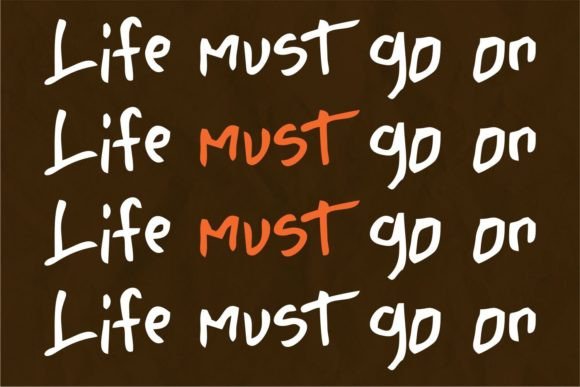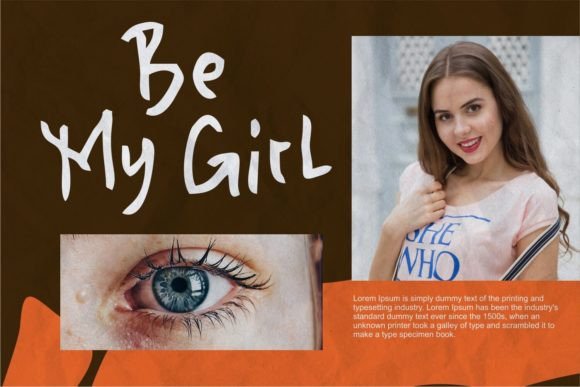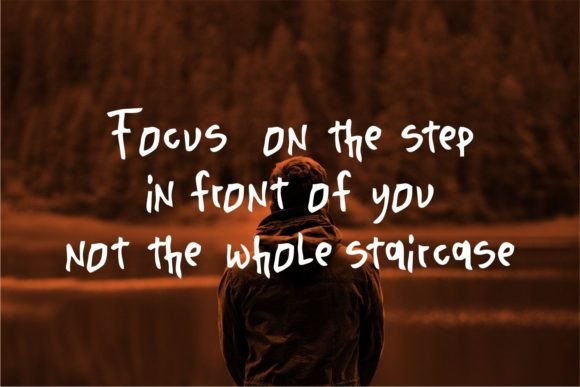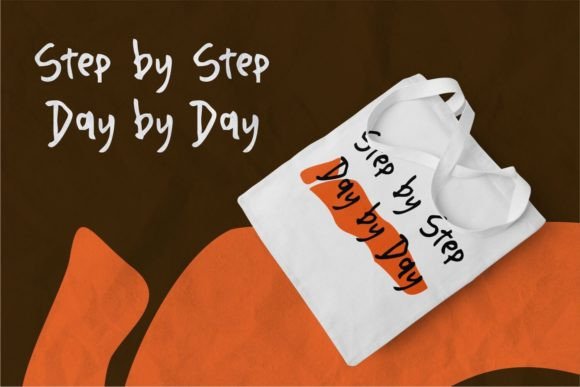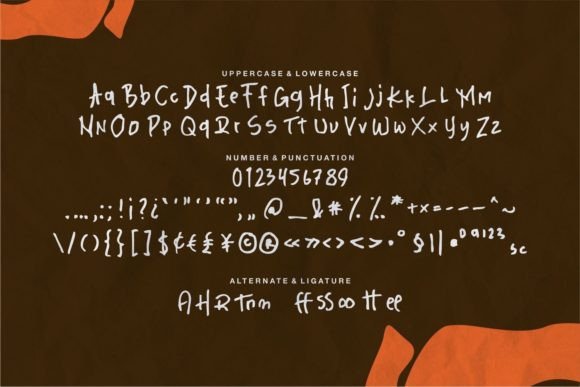
Discover the Delightful Aretta Font: Adding a Playful Touch to Your Designs
In the world of typography, fonts play a crucial role in conveying the tone and personality of a design. If you’re looking for a font that exudes playfulness, spontaneity, and a touch of whimsy, look no further than the Aretta font. This charming handwritten font is perfect for designers and crafters who want to add a personal and relaxed feel to their projects.
The Characteristics of Aretta Font
Aretta is a casual handwritten font that boasts a delightful, carefree charm. Its playful and spontaneous vibe makes it ideal for designs that require a touch of informality. The font features a touch of messiness, which adds to its whimsical nature. The irregularities in the letterforms give Aretta a friendly, approachable feel that’s perfect for a wide range of design applications.
Aretta is an excellent choice for designers and crafters working on creative projects that require a personal touch. Whether you’re designing invitations, greeting cards, or any other type of stationery, Aretta brings a unique and friendly charm to your work. The font’s informal style makes it perfect for:
- Invitations: Add a playful touch to your party invitations, wedding invites, or baby shower announcements.
- Greeting cards: Create personalized and heartfelt greeting cards for special occasions.
- Stationery: Design custom stationery, such as notebooks, journals, or letterheads, with a touch of whimsy.
- Digital products: Use Aretta to create engaging digital products, like printables, planners, or social media graphics.
The Benefits of Using Aretta Font
So, why choose Aretta font for your design projects? Here are just a few benefits of using this delightful font:
- Unique and eye-catching: Aretta’s playful and spontaneous vibe sets it apart from more traditional fonts.
- Personal and relaxed: The font’s informal style makes it perfect for designs that require a personal touch.
- Versatile: Aretta can be used for a wide range of design applications, from digital products to print materials.
- Easy to read: Despite its playful nature, Aretta remains easy to read, making it perfect for body text and headings.
Tips for Using Aretta Font Effectively
To get the most out of Aretta font, here are a few tips to keep in mind:
- Pair with contrasting fonts: Combine Aretta with a more traditional font to create visual interest and contrast.
- Experiment with colors: Aretta looks great in a variety of colors, so don’t be afraid to experiment and find the perfect hue for your design.
- Use it sparingly: While Aretta is a beautiful font, it can be overwhelming if used excessively. Use it sparingly to add a touch of whimsy to your design.
In conclusion, Aretta font is a delightful and playful addition to any design project. Its whimsical imperfections and informal style make it perfect for designers and crafters who want to add a personal and relaxed feel to their work. With its versatility, ease of use, and unique charm, Aretta is sure to become a favorite font in your collection. So, why not give Aretta a try and see how it can bring a touch of fun and spontaneity to your designs?